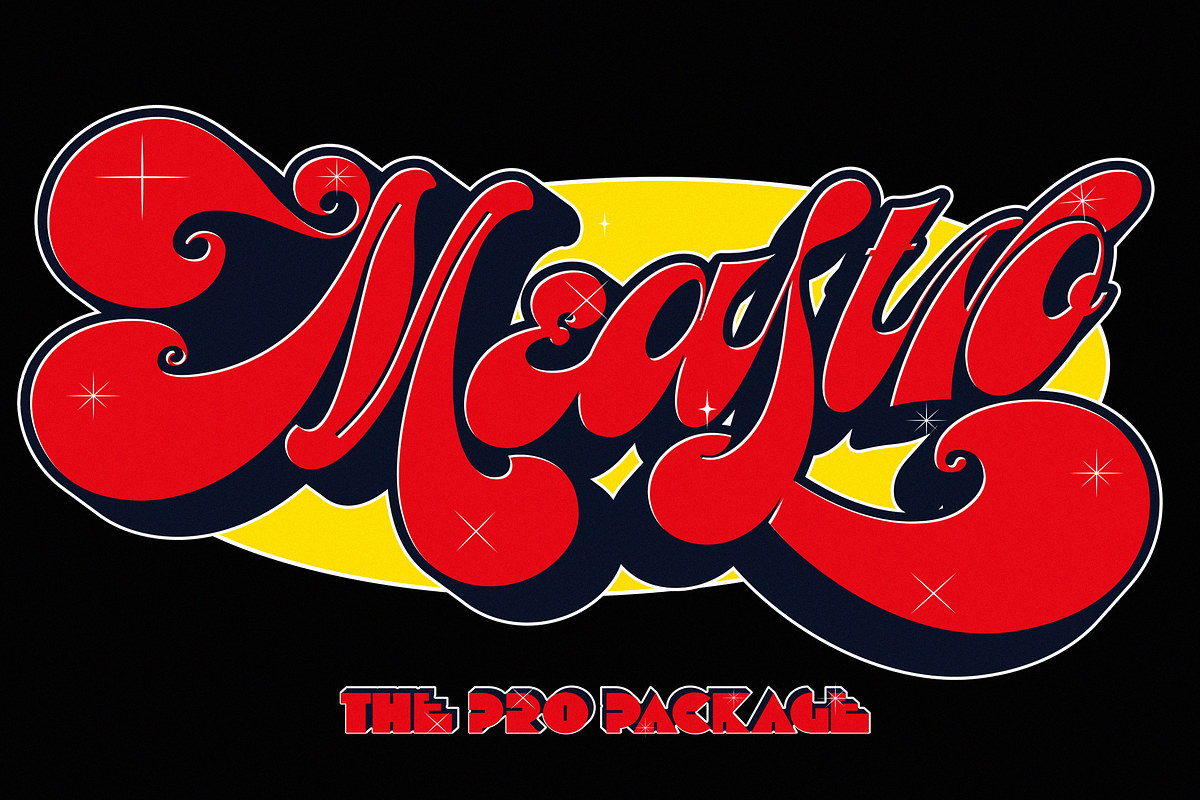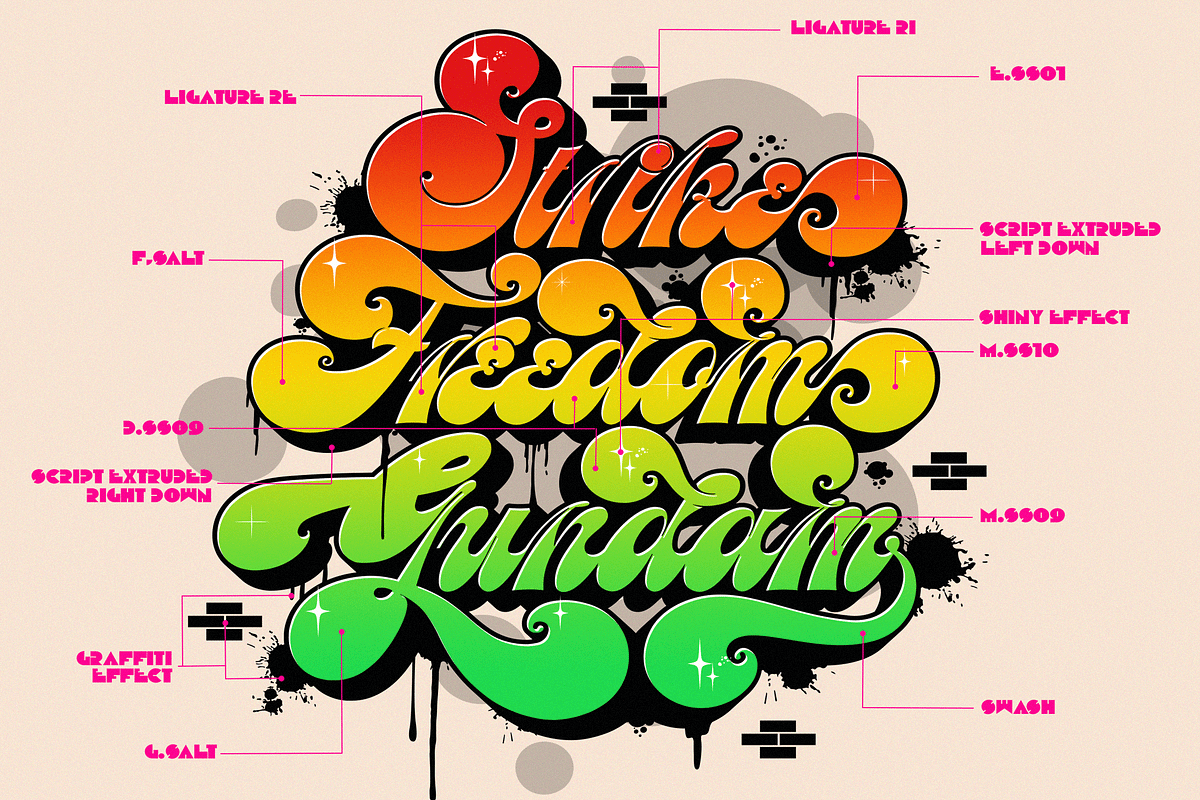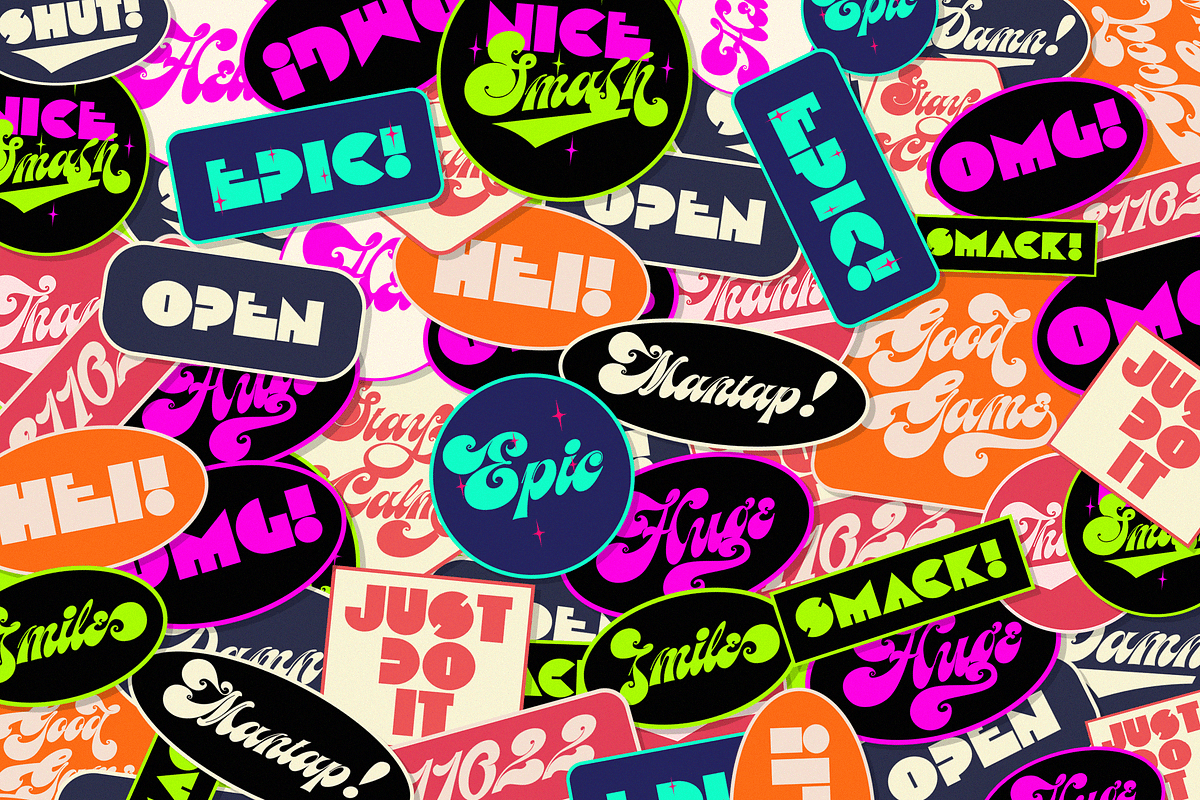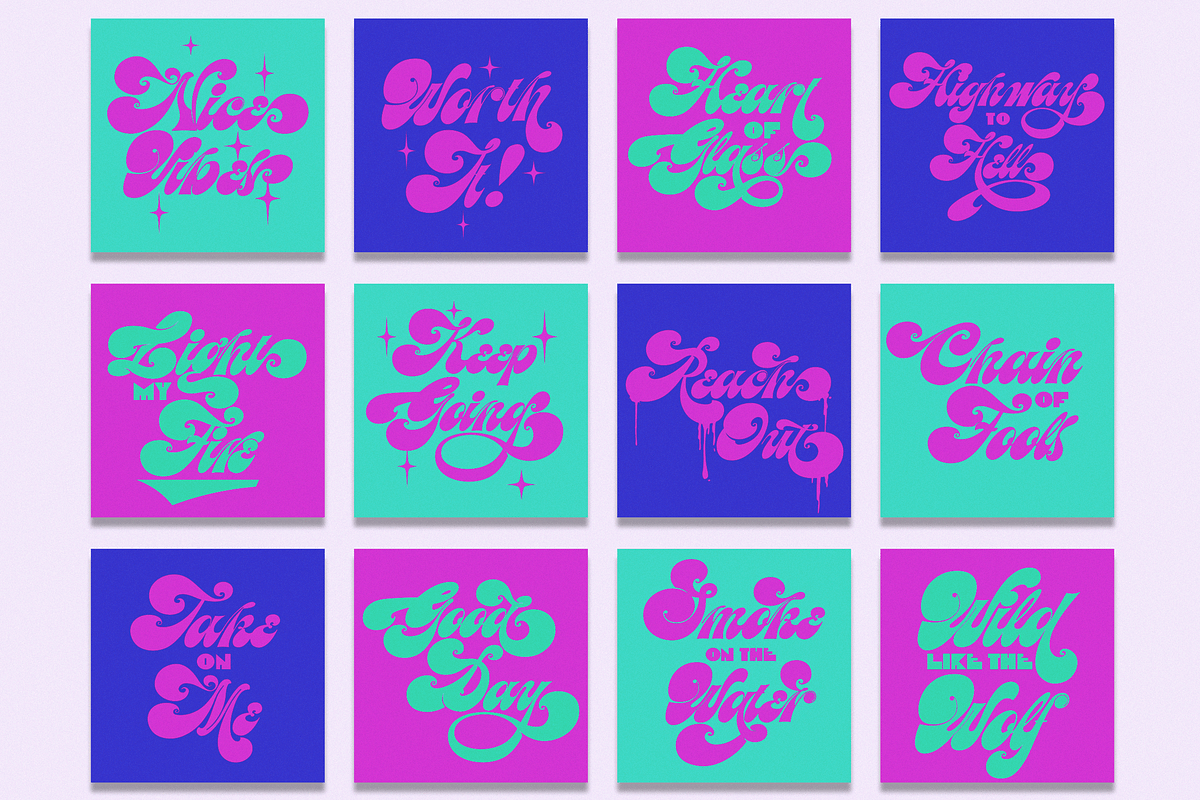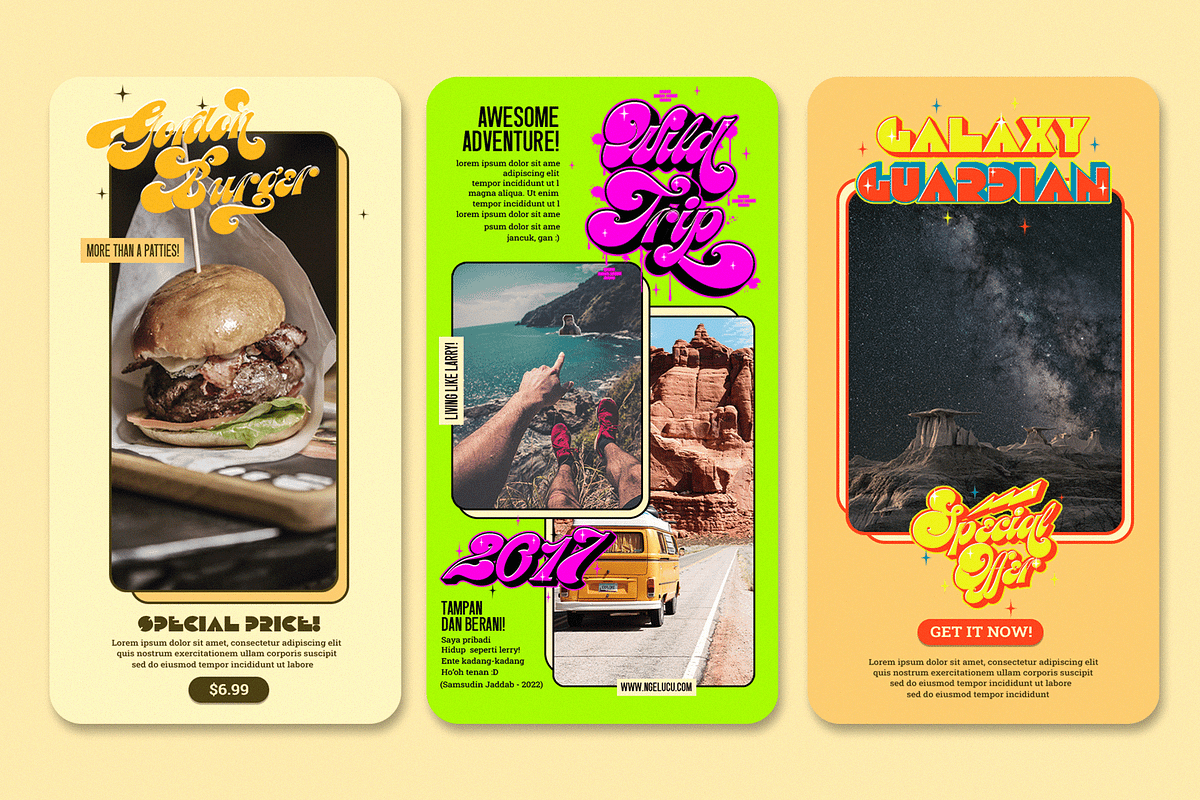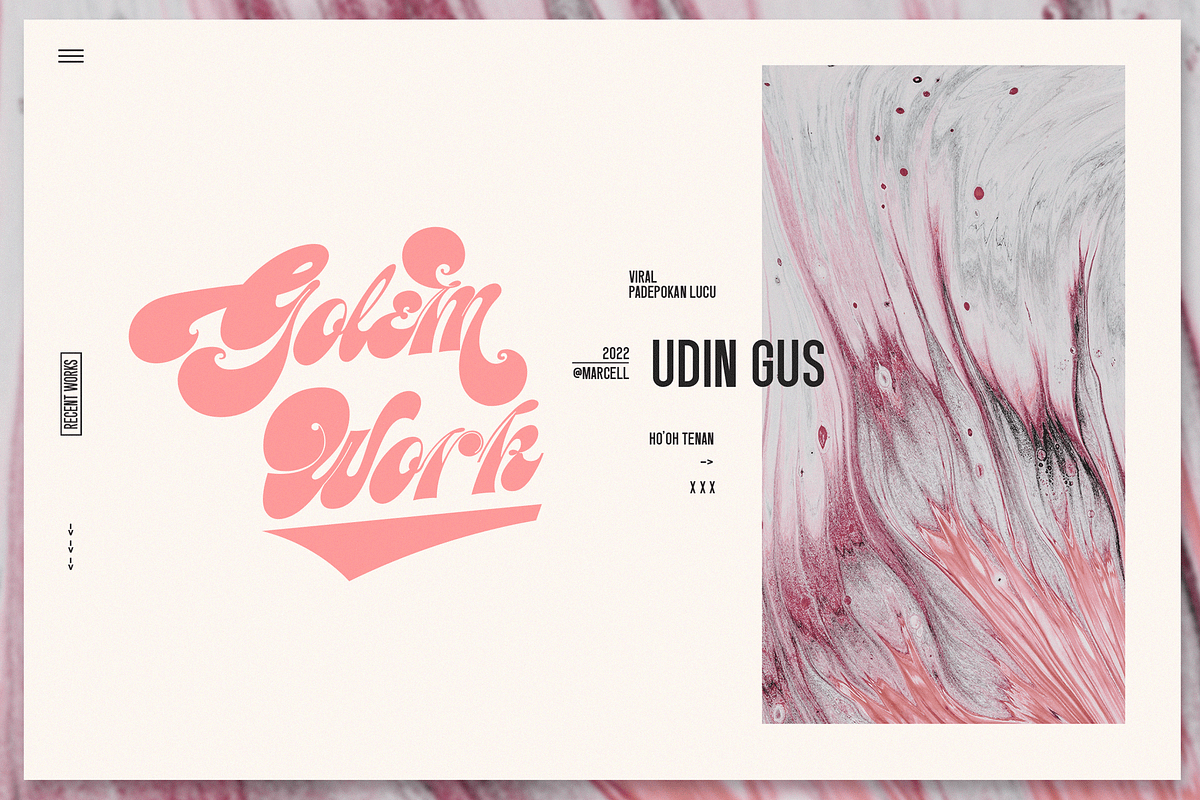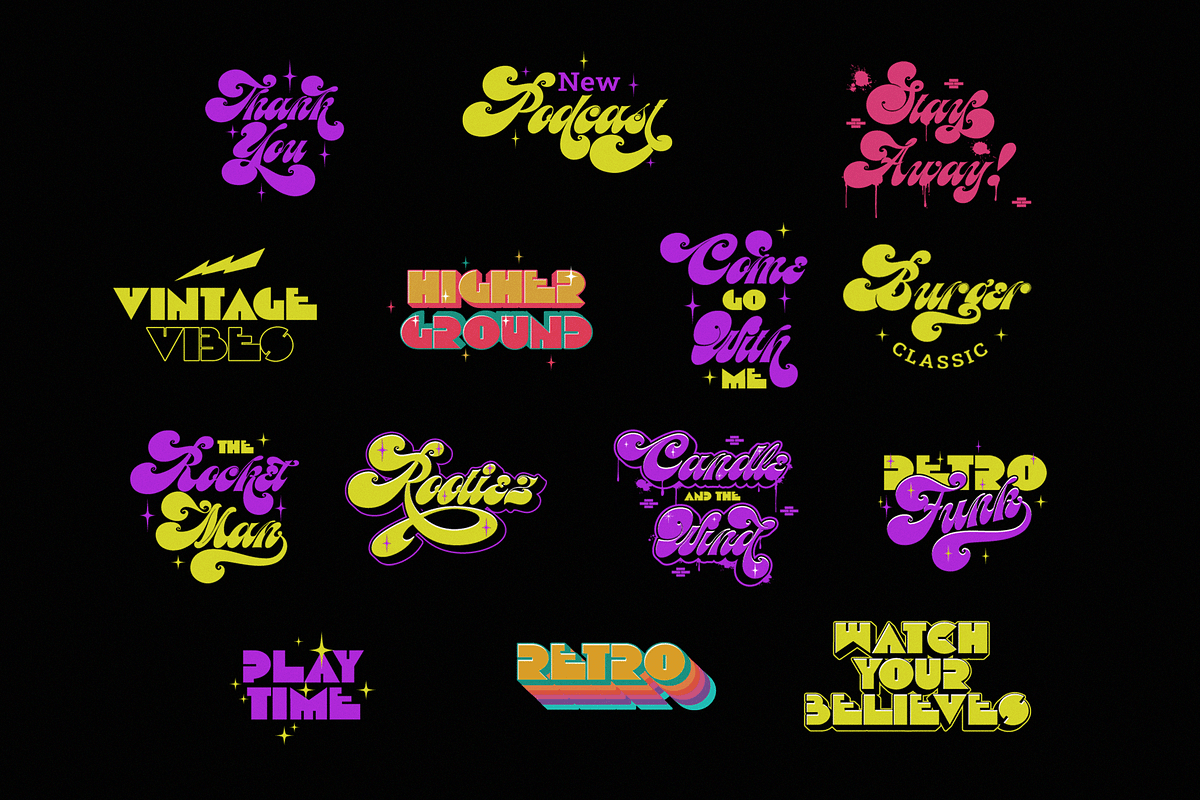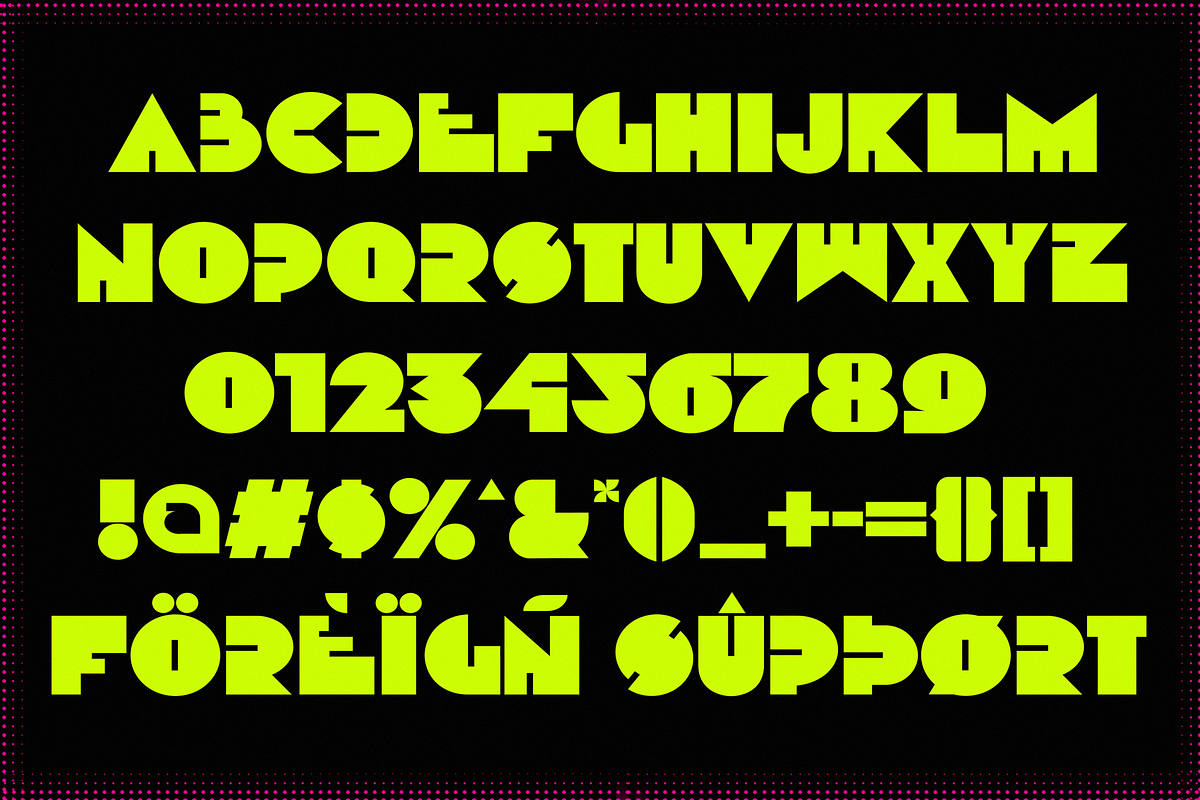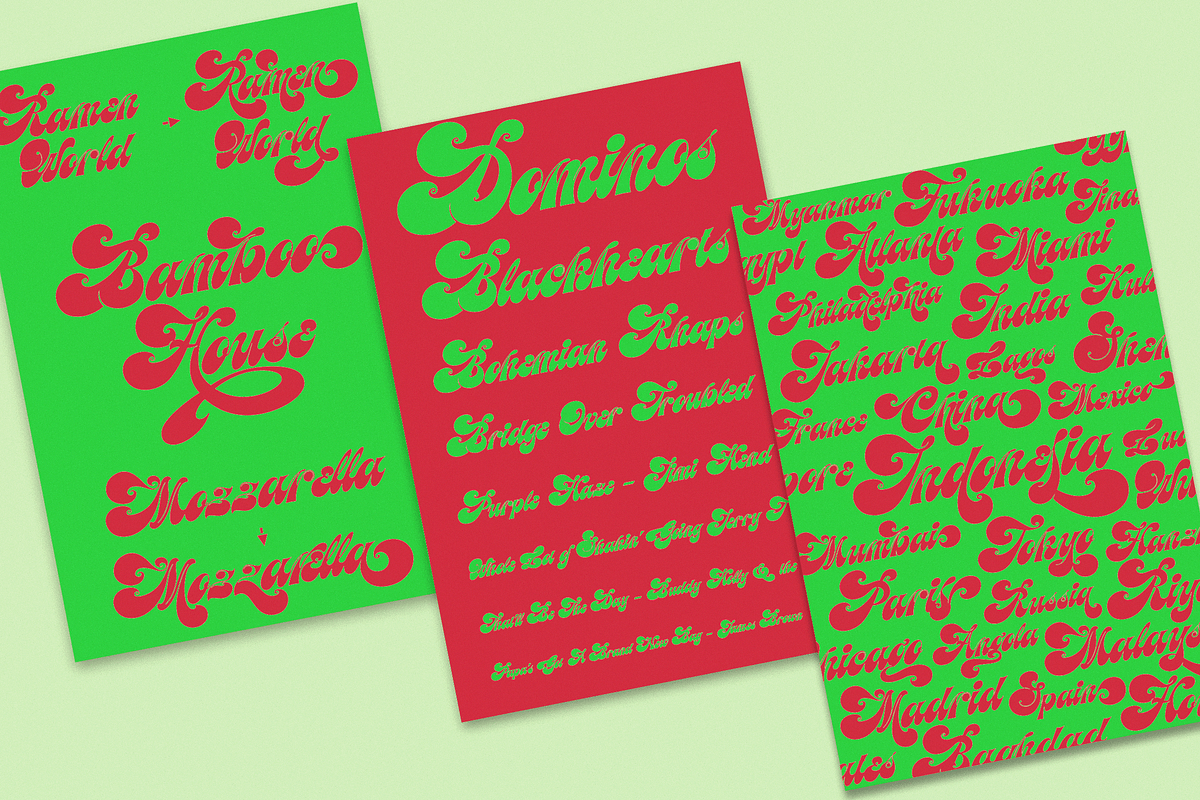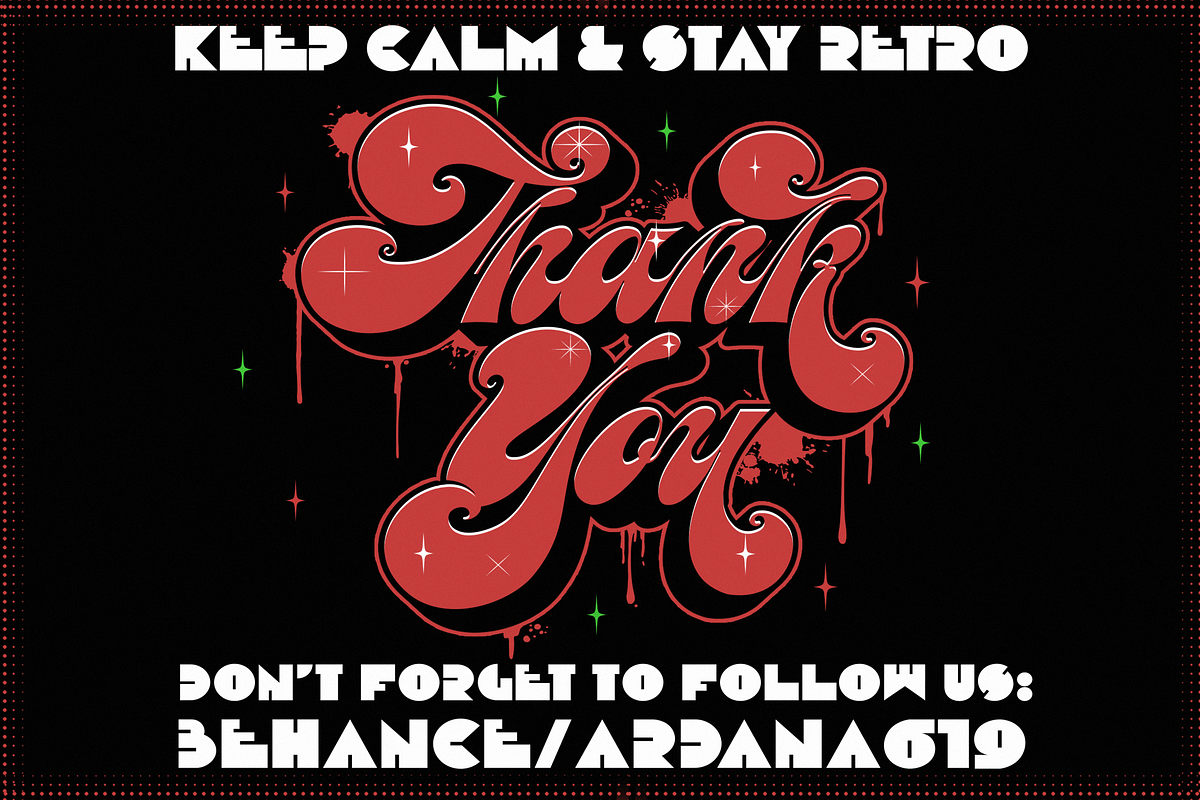
Meastro Pro Pack | Layered Retro
It's been a while... more than three months we developed our brand new font. We call them "Meastro". Fun fact though, we want to call it "Maestro", but you know... we were afraid of the copyright thing.
Meastro Script is a fun, bold, luscious, retro display script font. We crafted this font very carefully and make them very smoothly attach to each other. Especially, on the script version. You can see every character's tail beautifully connected one to another without using ligatures' help.
This font takes full advantage of the Open Type format with several automatic ligatures that occur as you type for your preferred design. Moreover, the manual stylistic alternates allow you to choose the letters you prefer. Alternates occur automatically as you type in supported programs when you have "Ligatures" or "Stylistic Alternates" turned on.
Meastro is Created with a ton of stylistic alternates, swashes, and ligatures, and also comes with layerable fonts to recreate the effect without uncomfortable overlaps of the extruded shadow effect.
On this pro pack, you will also get the Meastro Display font! On this font you will meet the unique blocky and squared design, making your design feel classic and retro-like.
Combine them and “boom”, you will be the “Maestro” of the vintage design!
This retro typeface is perfect for logotypes, t-shirts, vintage badges, retro quotes, branding, packaging, posters, signboards, social media needs, etc.
Meastro features:
A full set of uppercase and lowercase characters
Layered Style
Numbers and punctuation
Multilingual language support
OpenType Features
+553 Total Glyphs (Script)
+235 Total Glyphs (Display)
+238 Stylistic Alternates
+30 Ligatures
+69 Swashes and more (Shiny and Graffiti Spray Effect Included!)